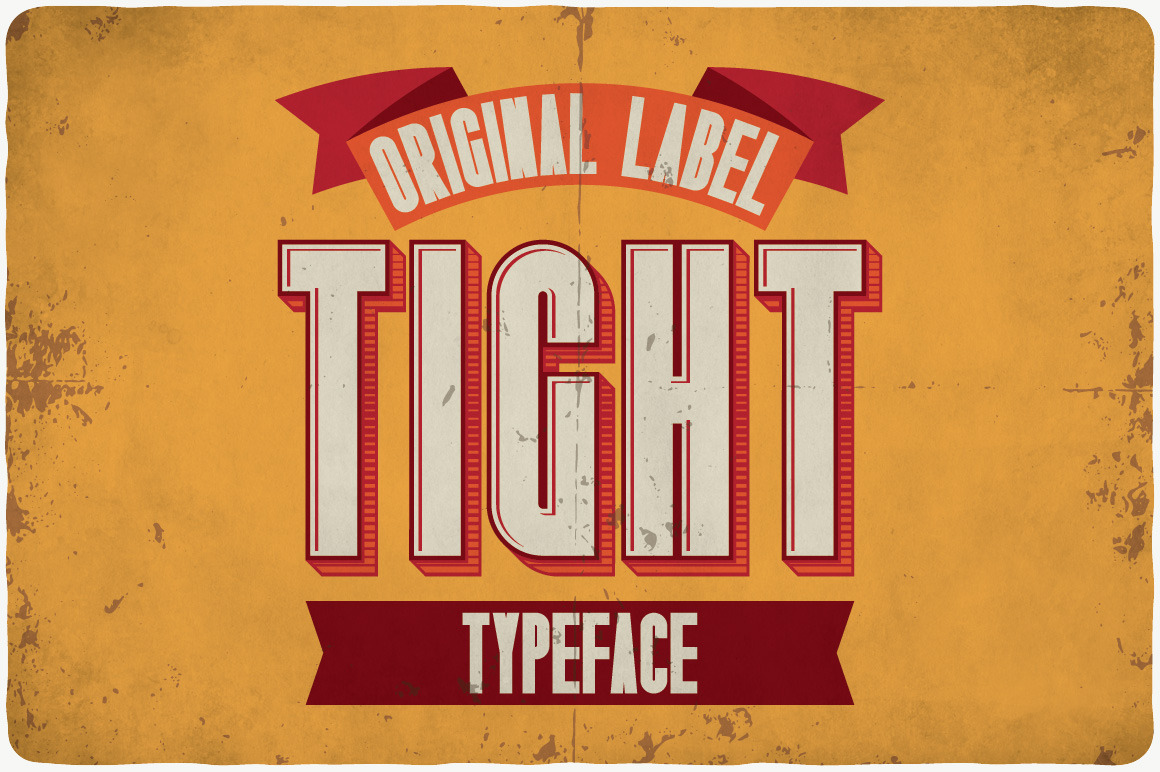
Tight typeface
Introducing a vintage look label typeface named "Tight". This typeface includes four styles, for sample look at 5th preview. Typeface will good viewed on any yours design.